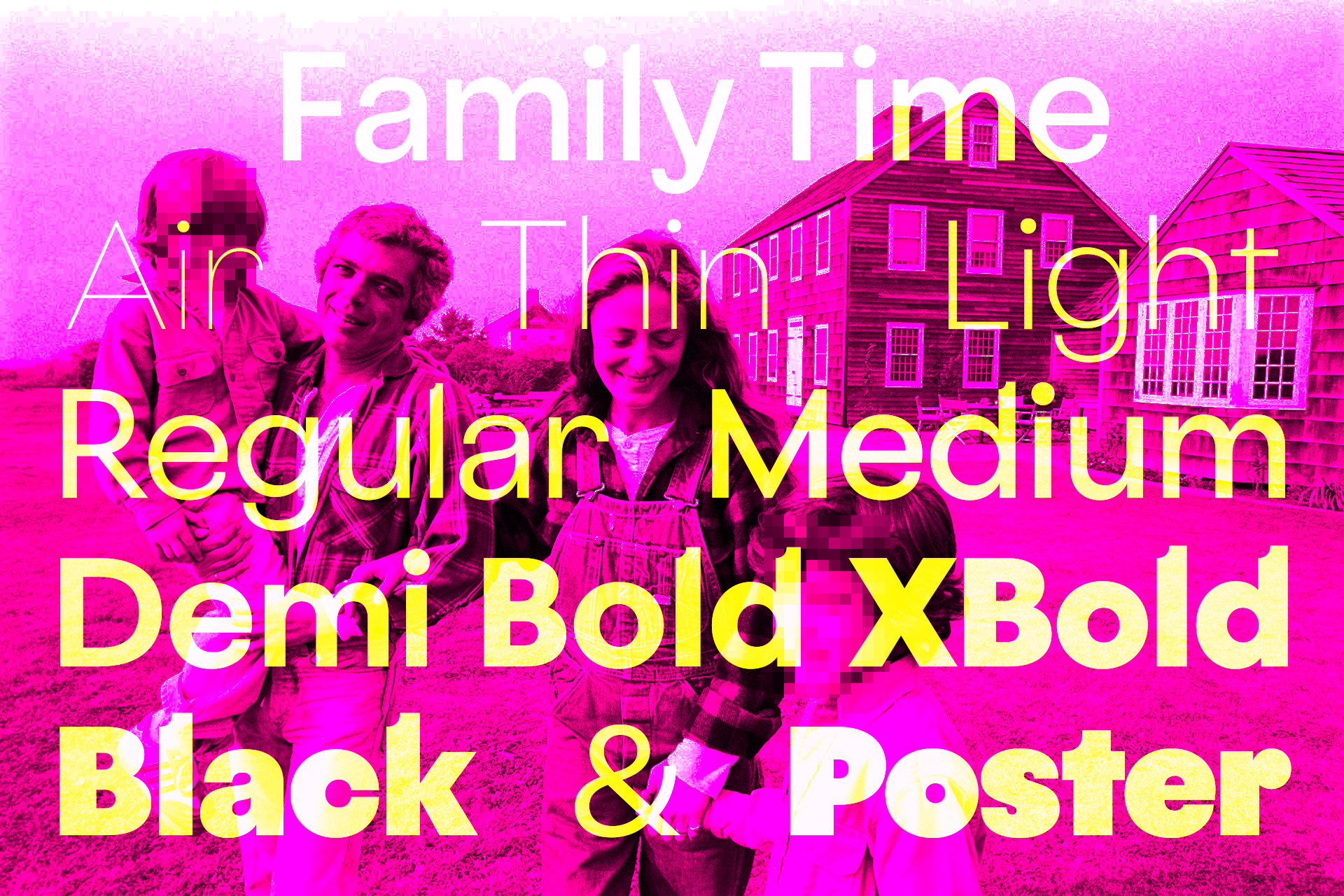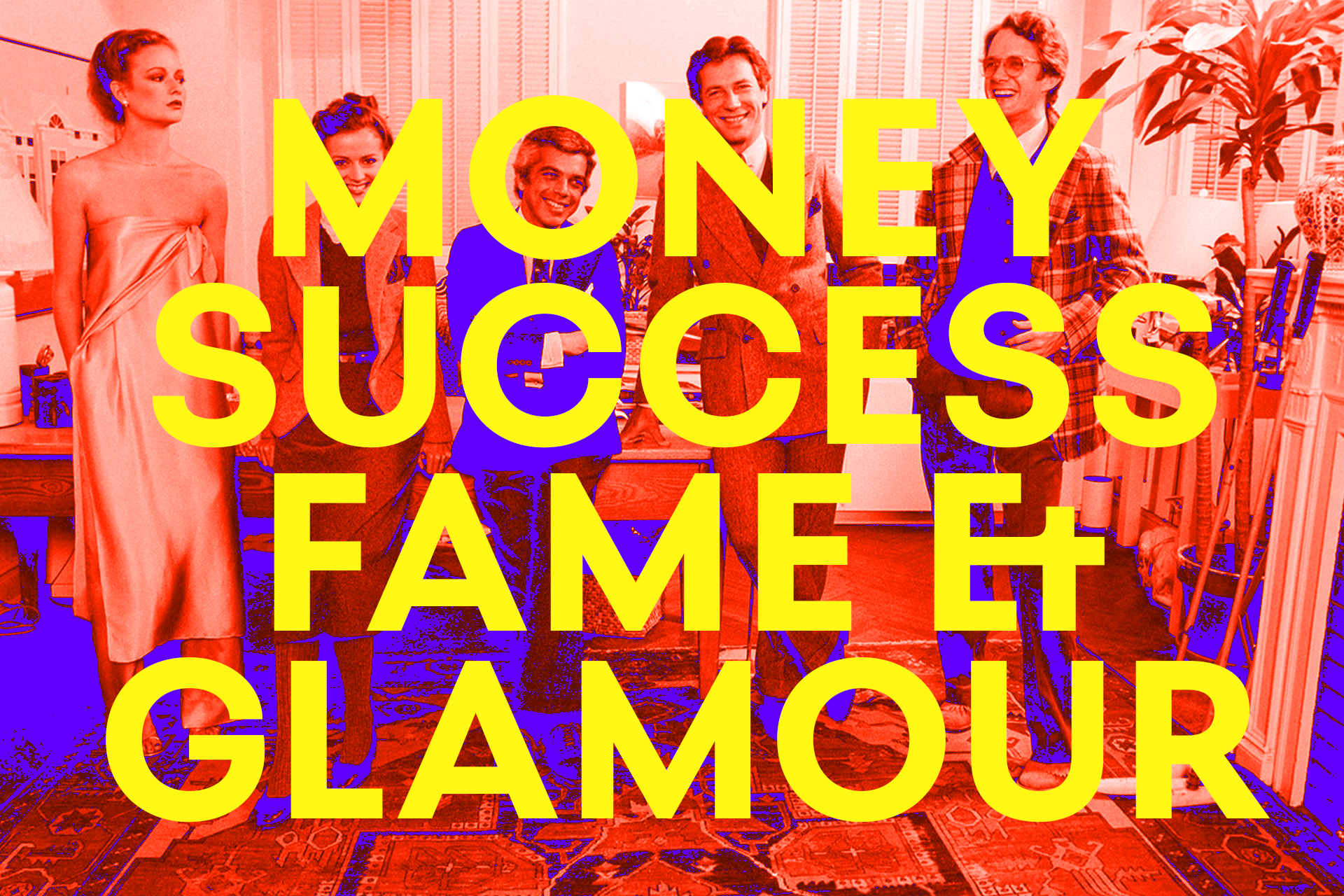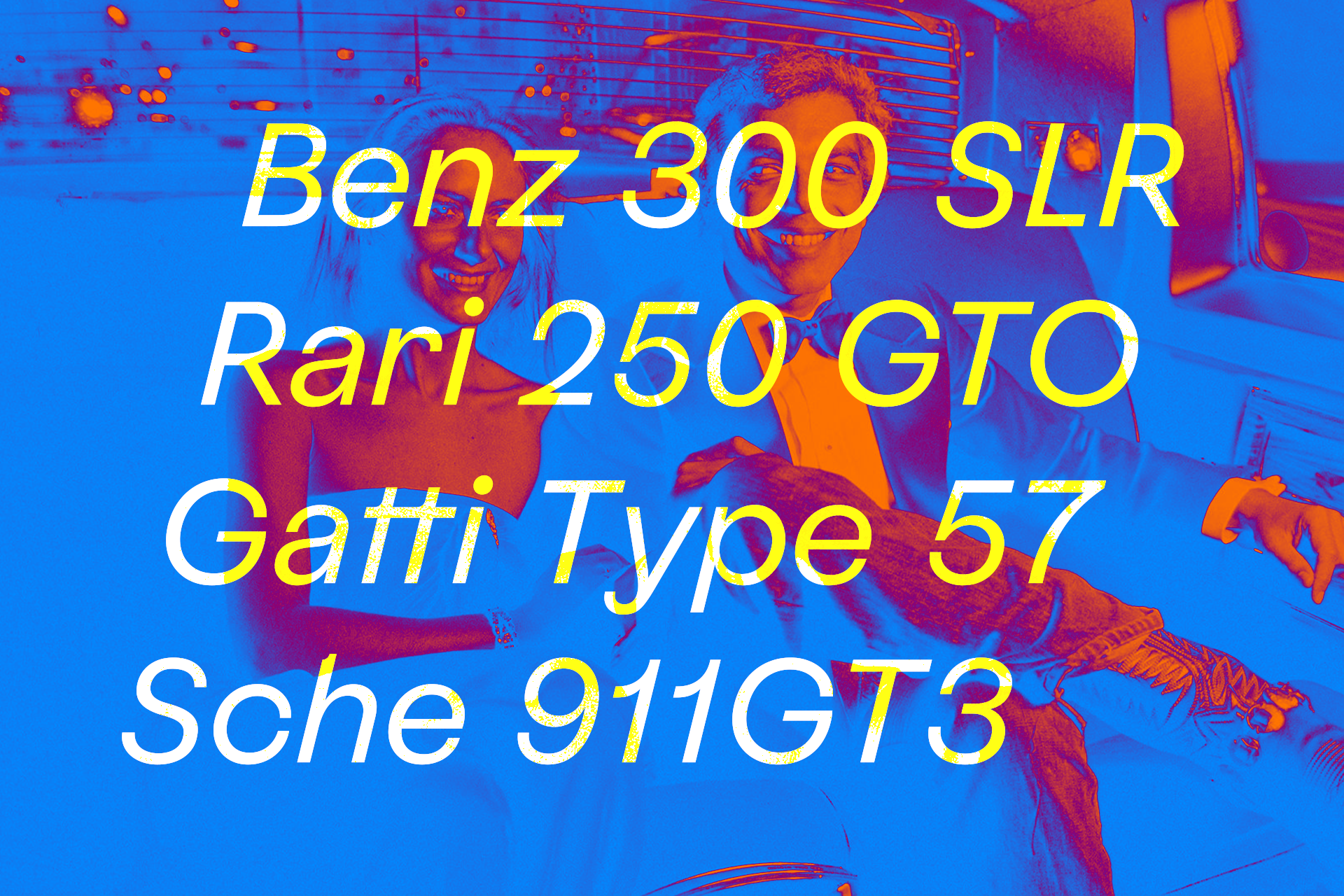
Best Grotesk
Best Grotesk is a sleek geometric sans with a bit of a twist. It combines clean, modern shapes, grotesk influences, the right amount of contrast, classic proportions, and unique round cuts on the ascenders, setting it apart from the usual sans‑serifs.
Beyond aesthetics, Best Grotesk is built with charisma and intention. The fonts are packed with extensive OpenType features, such as contextual alternates and ligatures, which, combined with precise spacing, create a balance between precision and personality. Perfect for eye-catching headlines, bold logotypes, and standout display use.
It comes with 10 weights from Air to Poster, with matching italics at a sharp 14-degree slant, supporting over 400 languages using the Latin script.
Design & Production
Ignacio Casco Guijarro